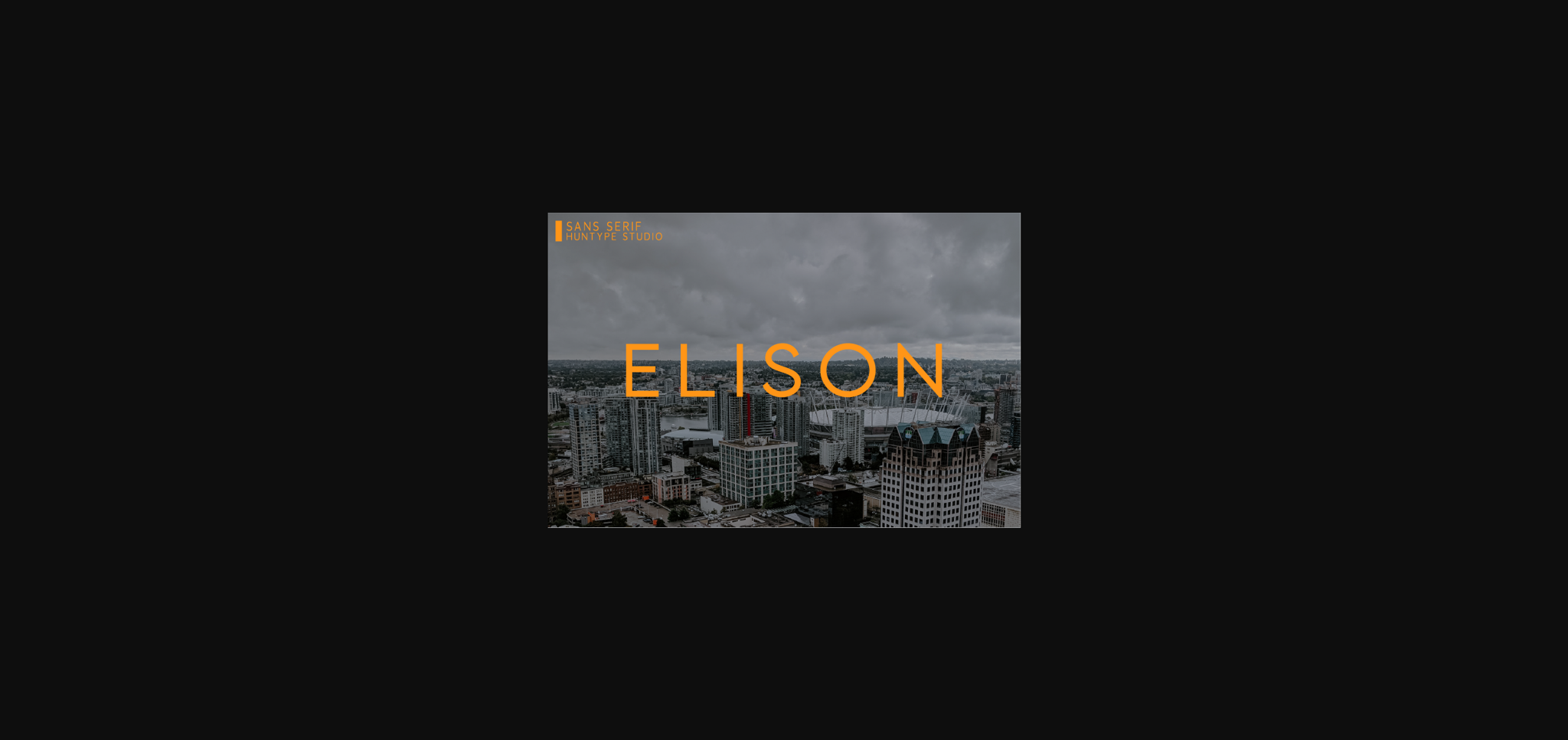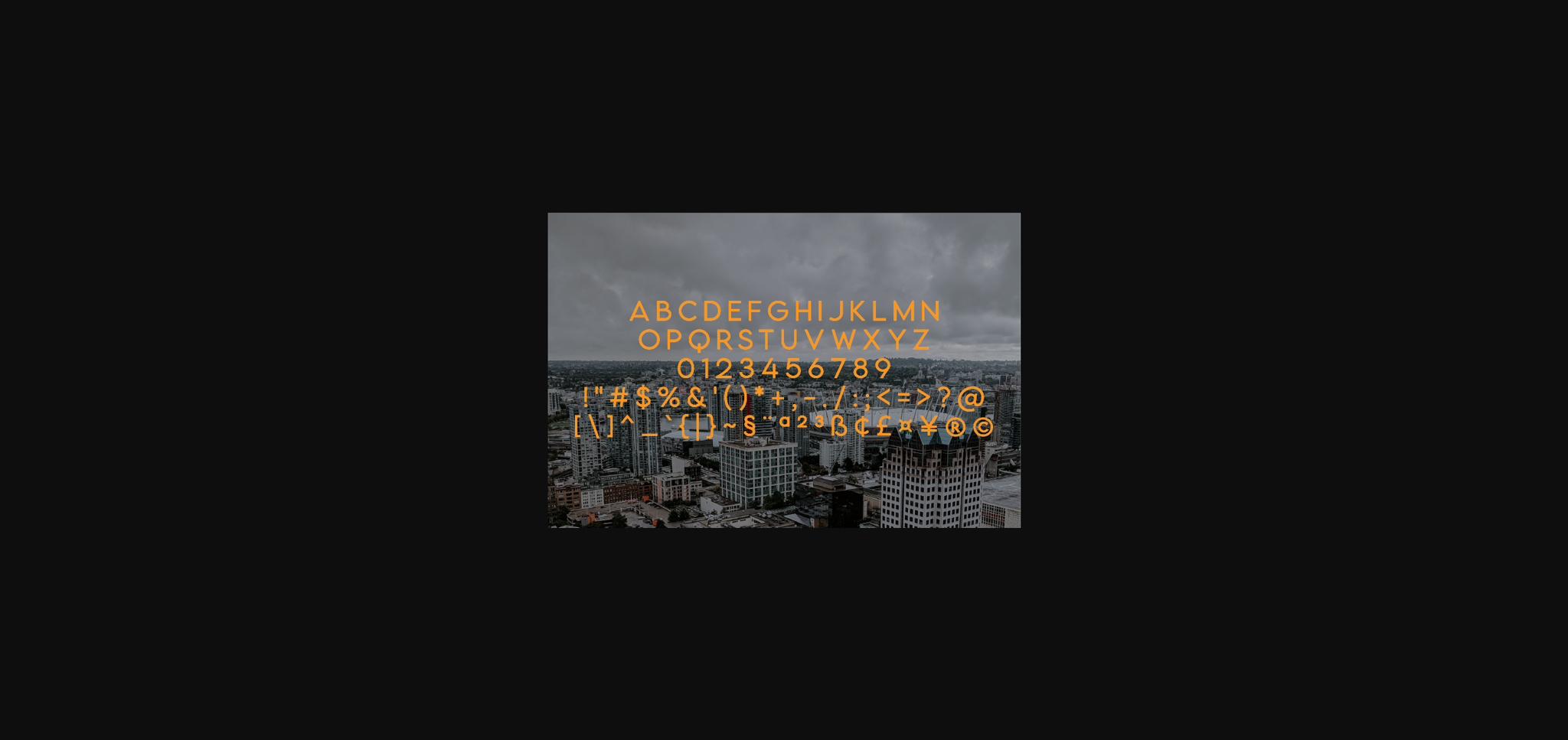
About Elison Font
Elison is a timeless sans serif font. Designed for optimum legibility, its clean, geometric look is perfect for logotypes, headers, titles and brochures.